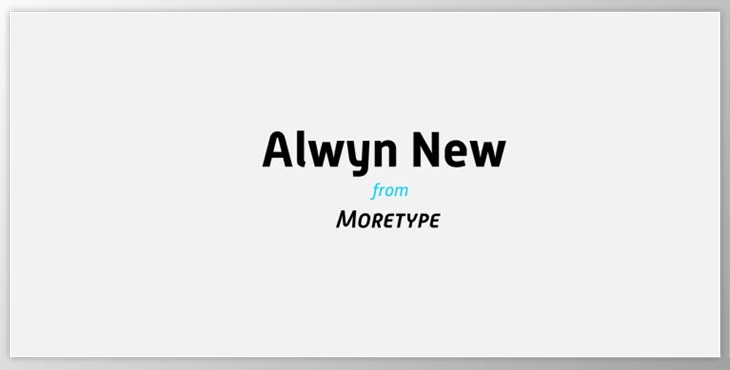
Alwyn New Font Family is a new take on Alwyn, released in 2005. This version was redrawn, re-spaced, and re-kerned to include all the original features with an important distinction: the recognizable 'squarish' and heavy look. Now Alwyn comes with all the features expected of an OpenType font. From Thin to Bold and all weights in Italics, this family is a one-stop shop for all your font needs. From body copy to a signage system, Alwyn New can do it all, bringing an appropriate look and weight for any situation. It's a nicely constructed version that allows for professional use across the board.